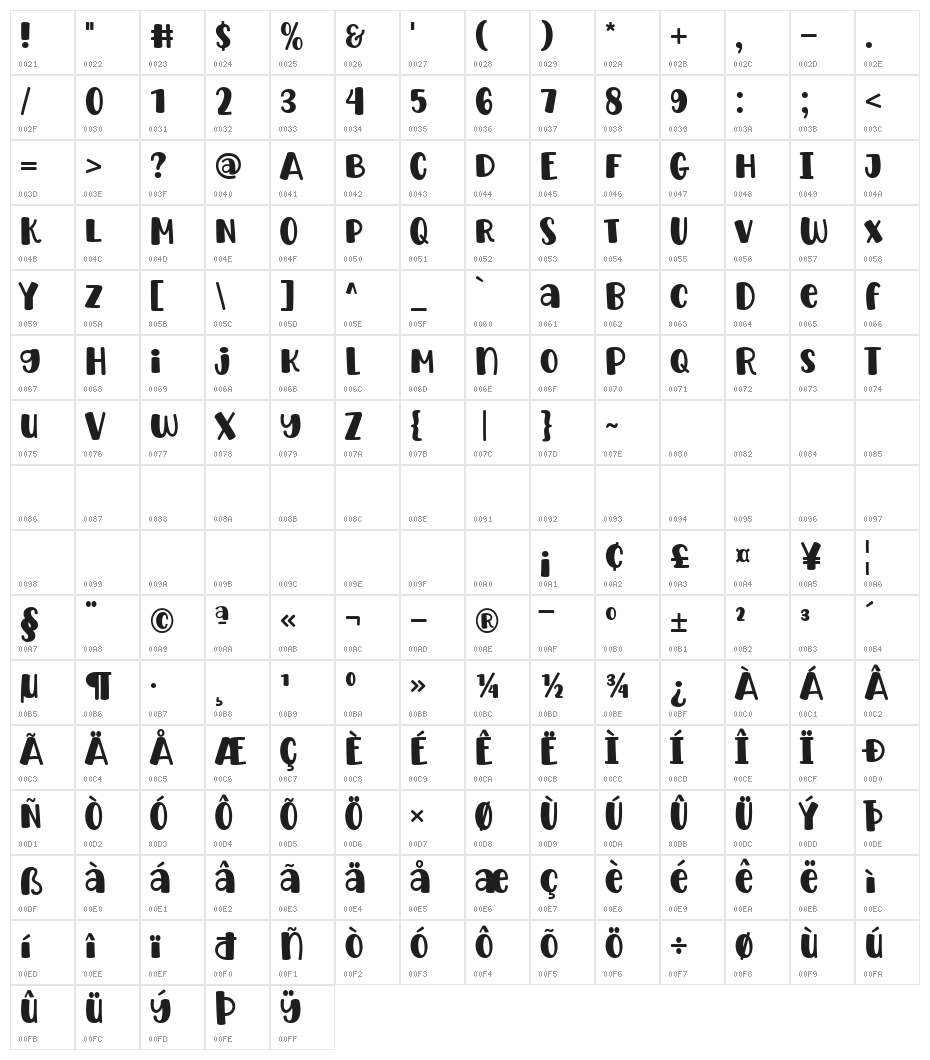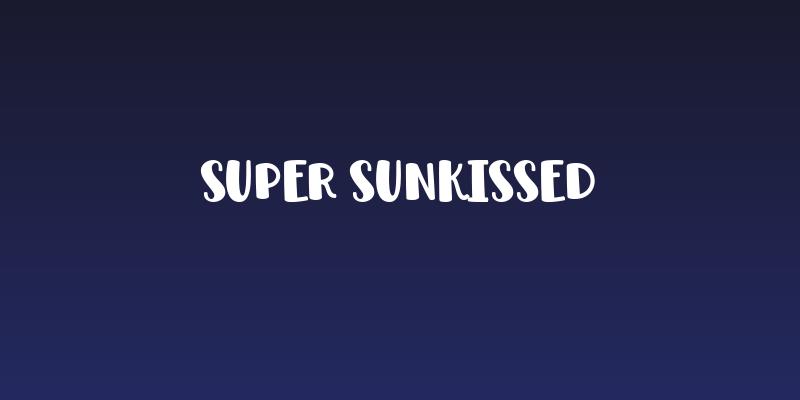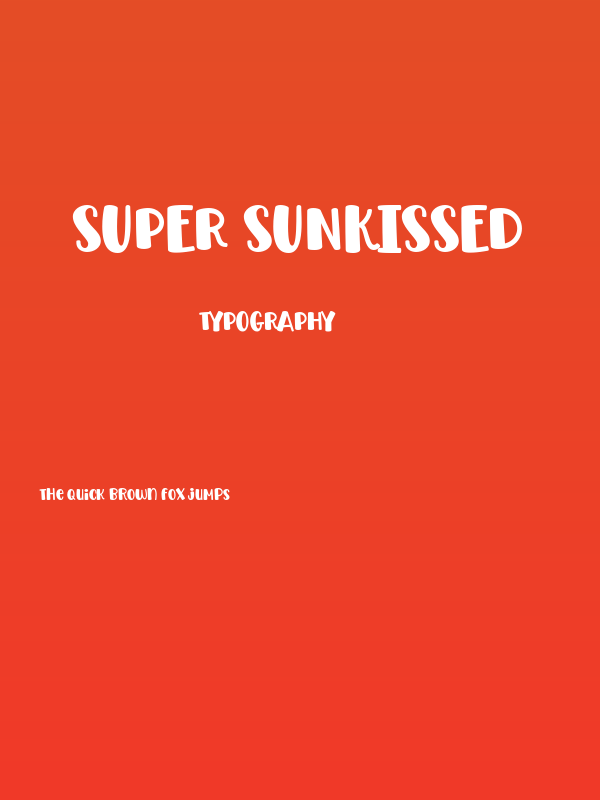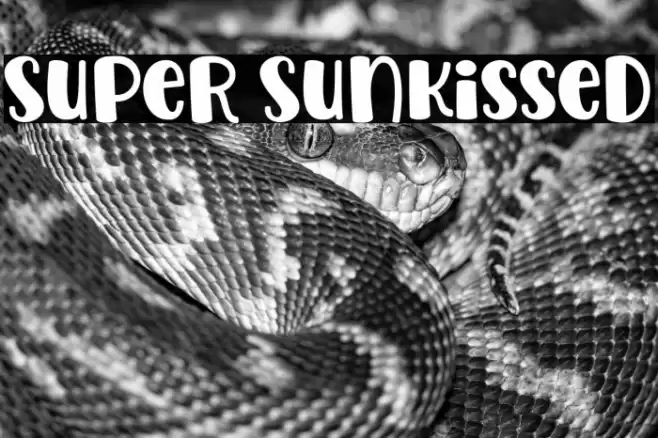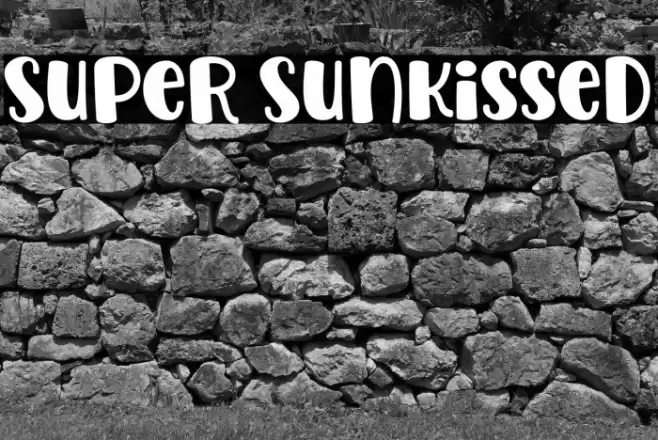
Super Sunkissed Font
Super Sunkissed Description
This playful and bold font features thick, rounded characters with a whimsical touch. The letters have a hand-drawn appearance, giving them a friendly and approachable vibe. The uppercase and lowercase letters maintain a consistent style, with slightly exaggerated curves and a casual flow. Numbers and special characters follow the same design principles, ensuring a cohesive look across all elements. The font's boldness makes it stand out, while its rounded edges soften its impact, making it suitable for a variety of creative applications.
| Use Case | Logos, Posters, Children's books |
| Proposed Projects | Ideal for children's books, playful branding, greeting cards, and creative posters. |